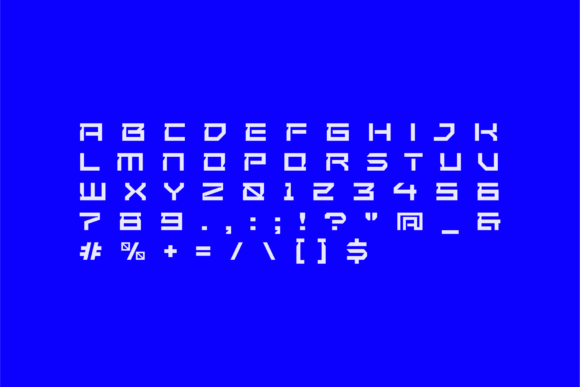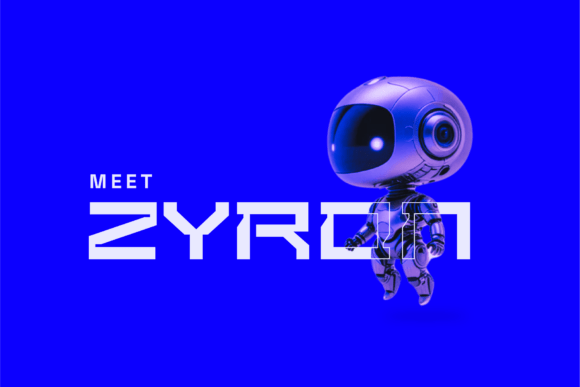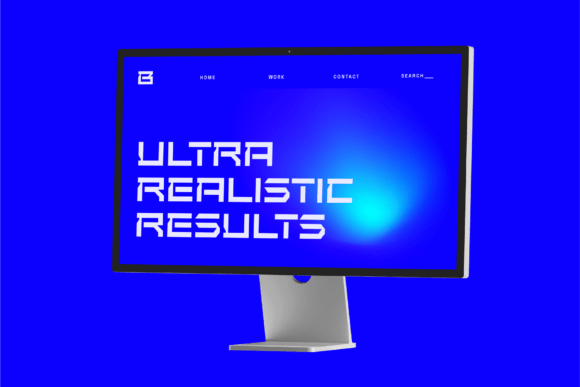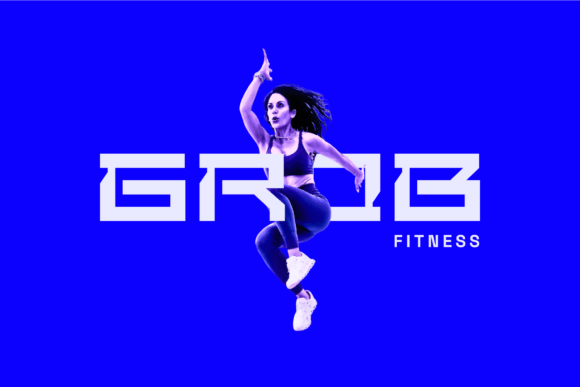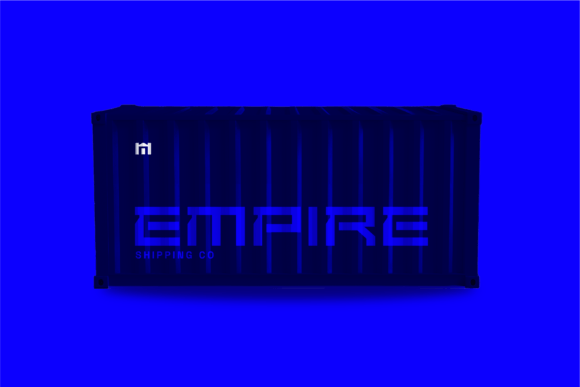
Eron Font: The Ultimate Choice for Futuristic Designs
In the world of typography, fonts play a crucial role in conveying the message and aesthetic of a brand or design. For those looking to make a bold statement with a futuristic and innovative vibe, the Eron Font is an excellent choice. This strong and sleek display font is designed to blend angular precision with minimalism, making it perfect for brands and interfaces that want to convey power, innovation, and forward motion.
The Design of Eron Font
Eron Font boasts a unique design that sets it apart from other fonts. Its sharp geometric cuts, consistent stroke widths, and compact letter spacing give it a high-tech, engineered aesthetic that is ideal for a variety of applications. The font’s angular precision and sleek lines create a sense of dynamism and movement, making it perfect for designs that require a sense of energy and forward motion.
Key Features of Eron Font
- Sharp Geometric Cuts: The font’s sharp geometric cuts give it a precise and engineered look that is perfect for tech-savvy brands and designs.
- Consistent Stroke Widths: The consistent stroke widths add to the font’s sense of stability and strength, making it suitable for logos, branding, and headlines.
- Compact Letter Spacing: The compact letter spacing creates a sense of density and efficiency, making the font perfect for designs where space is limited.
Use Cases for Eron Font
Eron Font is a versatile font that can be used in a variety of applications, including:
- Logos and Branding: The font’s strong and futuristic design makes it perfect for logos and branding that require a bold and innovative look.
- UI Headlines: The font’s clear and legible design makes it suitable for UI headlines, where readability is crucial.
- Gaming Titles: The font’s dynamic and energetic design makes it perfect for gaming titles that require a sense of excitement and adventure.
- Sci-Fi Visuals: The font’s futuristic design makes it suitable for sci-fi visuals, where a sense of otherworldliness and innovation is required.
Why Choose Eron Font?
- Unique Design: The font’s unique design sets it apart from other fonts, making it perfect for designers who want to create a bold and innovative look.
- Versatility: The font’s versatility makes it suitable for a variety of applications, from logos and branding to UI headlines and gaming titles.
- High-Tech Aesthetic: The font’s high-tech aesthetic makes it perfect for brands and designs that require a sense of innovation and forward motion.
In conclusion, Eron Font is a strong and futuristic display font that is perfect for designers and crafters who want to convey innovation, power, and forward motion. Its unique design, versatility, and high-tech aesthetic make it suitable for a variety of applications, from logos and branding to UI headlines and gaming titles. Whether you’re looking to create a bold and innovative look or simply want to add a touch of futurism to your design, Eron Font is an excellent choice.